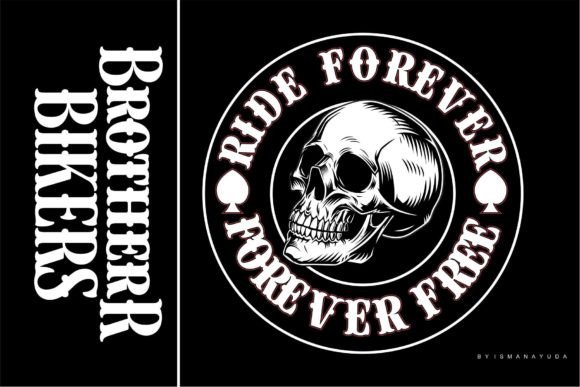
Brother Bikers Font
Brother Bikers is a font that is intended for displaying needs or naming a community.Whether it is used for a tattoo community or a motorcycle community.It is also very suitable for use for barber shops or coffee shop poster displays as well as for tattoo studios.